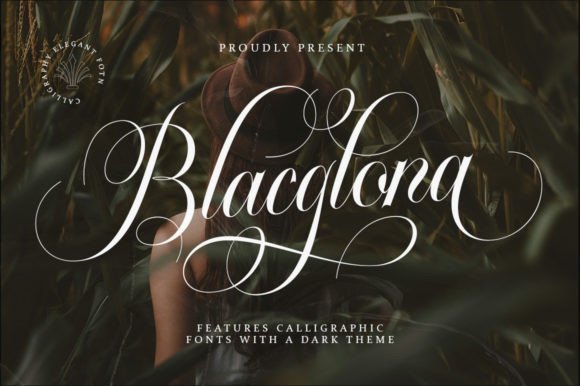
Introducing Blacglona Font: The Ultimate Elegance for Your Creative Projects
Are you looking for a font that exudes elegance, sophistication, and style? Look no further than Blacglona Font, a stunning script font that is sure to capture your heart. With its incredibly versatile style, Blacglona is perfect for creating a wide range of creative projects, from gorgeous wedding invitations to beautiful stationary art, eye-catching social media posts, and much more.
What is Blacglona Font?
Blacglona Font is a stylish and elegant script font that is designed to add a touch of sophistication to your creative projects. Its beautiful, flowing lines and intricate details make it perfect for creating eye-catching headlines, titles, and text. Whether you’re looking to create a romantic wedding invitation or a stunning piece of stationary art, Blacglona Font is the perfect choice.
Features of Blacglona Font
Blacglona Font comes with a range of features that make it the perfect choice for your creative projects. Some of its key features include:
- Versatile style: Blacglona Font is incredibly versatile, making it perfect for creating a wide range of creative projects, from wedding invitations to social media posts.
- Elegant and sophisticated: Blacglona Font exudes elegance and sophistication, making it perfect for creating high-end creative projects.
- Beautiful, flowing lines: Blacglona Font features beautiful, flowing lines that are sure to capture your heart.
- Intricate details: Blacglona Font includes intricate details that add an extra touch of elegance to your creative projects.
Uses of Blacglona Font
Blacglona Font is perfect for creating a wide range of creative projects, including:
- Wedding invitations: Blacglona Font is perfect for creating gorgeous wedding invitations that will set the tone for your special day.
- Stationary art: Blacglona Font is perfect for creating beautiful stationary art, including greeting cards, thank you cards, and more.
- Social media posts: Blacglona Font is perfect for creating eye-catching social media posts that will grab the attention of your followers.
- Logos and branding: Blacglona Font is perfect for creating elegant and sophisticated logos and branding materials.
Why Choose Blacglona Font?
There are many reasons why you should choose Blacglona Font for your creative projects. Here are just a few:
- Unique and elegant style: Blacglona Font features a unique and elegant style that is sure to set your creative projects apart.
- High-quality design: Blacglona Font is designed to the highest standards, ensuring that it looks great in any creative project.
- Versatile: Blacglona Font is incredibly versatile, making it perfect for creating a wide range of creative projects.
Tips for Using Blacglona Font
Here are a few tips for using Blacglona Font in your creative projects:
- Use it sparingly: Blacglona Font is a statement font, so use it sparingly to add emphasis to your creative projects.
- Pair it with other fonts: Blacglona Font pairs well with other fonts, so don’t be afraid to experiment with different font combinations.
- Experiment with different sizes: Blacglona Font looks great in a variety of sizes, so experiment with different sizes to find the one that works best for your creative project.
- What is Blacglona Font?: Blacglona Font is a stylish and elegant script font that is perfect for creating a wide range of creative projects.